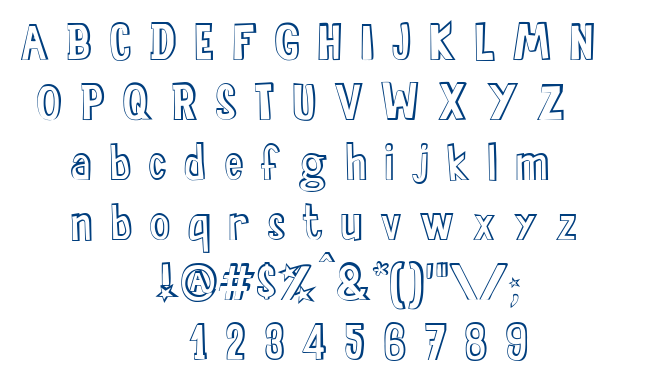
Sala de Fiesta is inspired by a handpainted sign for a ballroom in the island of Fuerteventura. The missing letters where drawn keeping the existing ones’ idiosincracies (casual serifs, star-shaped dots).Though hand-drawn the font manages unexpectedly to be very readable as body text, with the proportions of a condensed sans serif.For commercial licence please visit our site www.zetafonts.com.